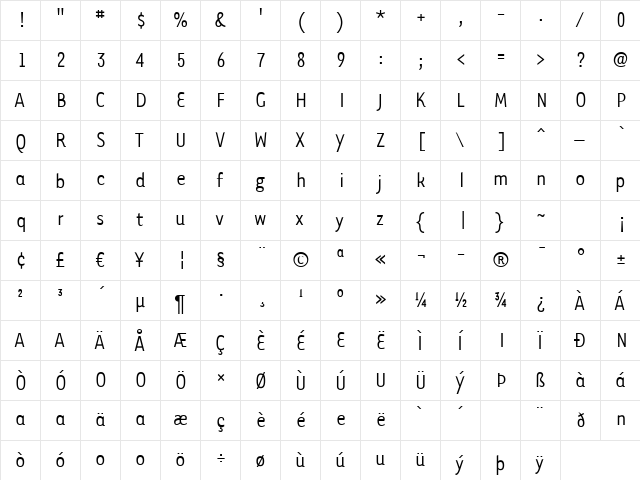
Tarzana Narrow Regular
Design Context for Tarzana Narrow Typeface
Tarzana Narrow offers clean, dependable letterforms without strong stylistic allegiance, making it a practical choice for designers who need flexibility. The condensed width makes it efficient for tight spaces without sacrificing legibility.